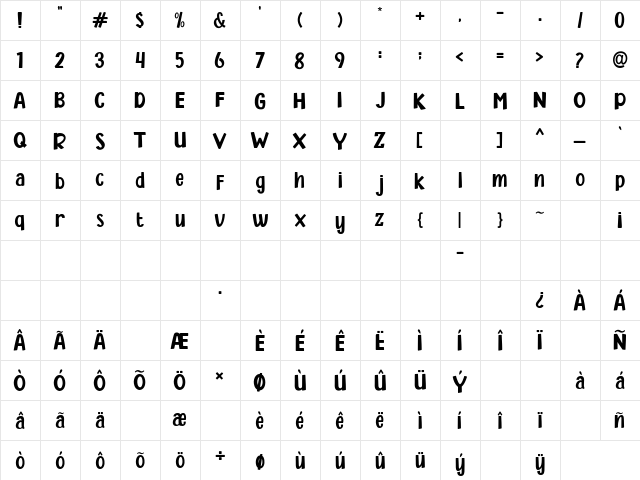
Ranked Hockey Regular
| Foundry | Graphicxell |
| Designer | Usman Al Baehaqi |
Design Context for Ranked Hockey Typeface
Ranked Hockey is a composed and adaptable typeface that performs quietly and consistently across a wide range of design contexts.